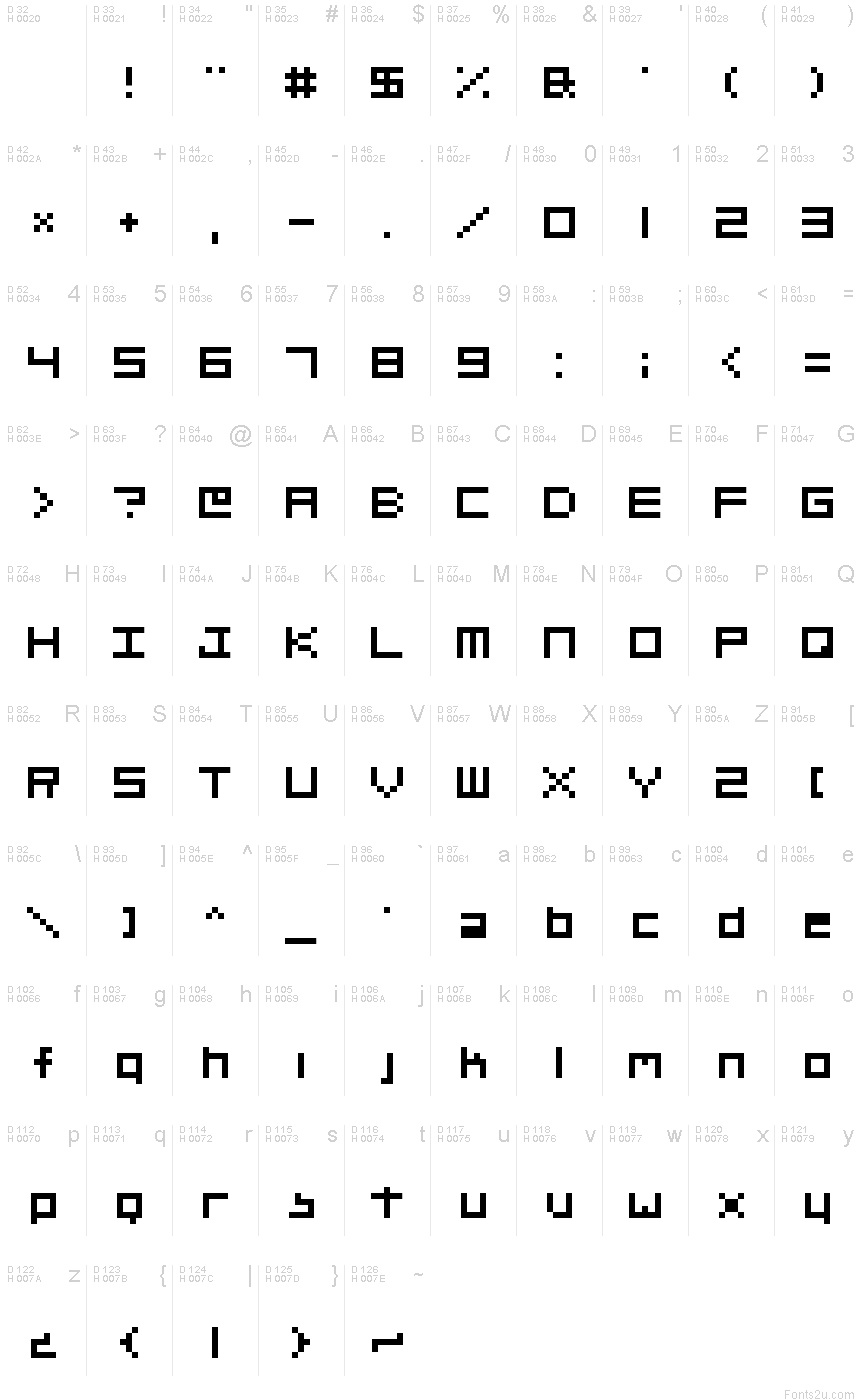
Org_v01
Org_v01 font by Orgdot is a free bitmap font with a pixelated, square-cut structure and sharp right angles throughout. Its letterforms feel assembled from a tight grid, with open corners, blocky curves, and a clipped, digital rhythm that gives the face a distinctly screen-based look.
Org_v01 works well for arcade graphics, game menus, app splash screens, poster titles, and tech labels where a pixel style feels intentional. This free font also fits code-themed artwork, retro badges, and interface accents because its rigid bitmap shape keeps the design consistent across short words and display use.